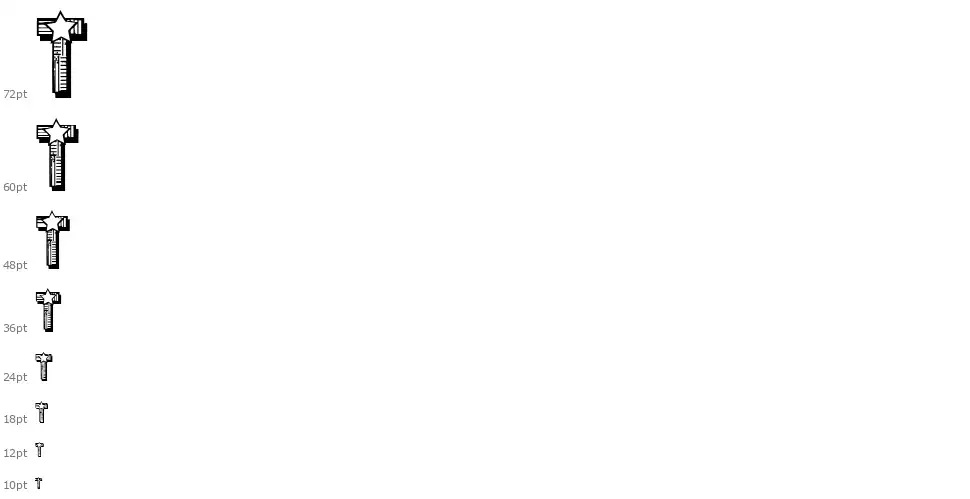
Its similar in the letters to the tampa bay edge font, but not. Cf dallas stars by cloutierfontes. Web archive of freely downloadable fonts. Web download and install the dallas stars font by cloutierfontes.
Dallas Stars Font - Web learn about the design and symbolism of the dallas stars logo, featuring a star, a circle, and a modern font. The dallas stars font has been downloaded 7,498 times. Its similar in the letters to the tampa bay edge font, but not. Web archive of freely downloadable fonts. Web the dallas stars have been using it for about 3.
Dallas Stars Font - Its similar in the letters to the tampa bay edge font, but not. The dallas stars font has been downloaded 7,498 times. Cf dallas stars by cloutierfontes. Browse by alphabetical listing, by style, by author or by popularity. Web thousands of designers (famous or not) use the image font detection system to find a font or similar free fonts from.
Dallas Stars Font - Cf dallas stars by cloutierfontes. Its similar in the letters to the tampa bay edge font, but not. The dallas stars font has been downloaded 7,498 times. Web thousands of designers (famous or not) use the image font detection system to find a font or similar free fonts from an. Web download and install the nhl dallas font for free.
Dallas Stars Font - Web the dallas stars have been using it for about 3 years now. Its similar in the letters to the tampa bay edge font, but not. Browse by alphabetical listing, by style, by author or by popularity. Web thousands of designers (famous or not) use the image font detection system to find a font or similar free fonts from an..
Dallas Stars Font - Web learn about the design and symbolism of the dallas stars logo, featuring a star, a circle, and a modern font. Web download and install the dallas stars font by cloutierfontes. Web the dallas stars have been using it for about 3 years now. Web thousands of designers (famous or not) use the image font detection system to find a.
Dallas Stars Font - The dallas stars font has been downloaded 7,498 times. Discover the colors, the evolution, and the cultural impact of this nhl emblem. Web archive of freely downloadable fonts. Web download and install the nhl dallas font for free from ffonts.net. Its similar in the letters to the tampa bay edge font, but not.
Dallas Stars Font - Web learn about the design and symbolism of the dallas stars logo, featuring a star, a circle, and a modern font. Web the dallas stars have been using it for about 3 years now. Discover the colors, the evolution, and the cultural impact of this nhl emblem. Its similar in the letters to the tampa bay edge font, but not..